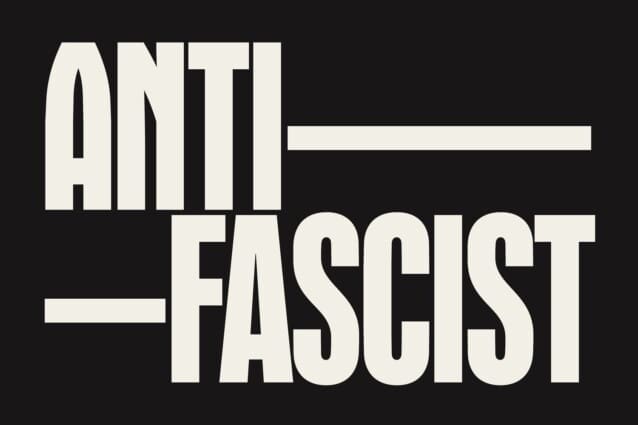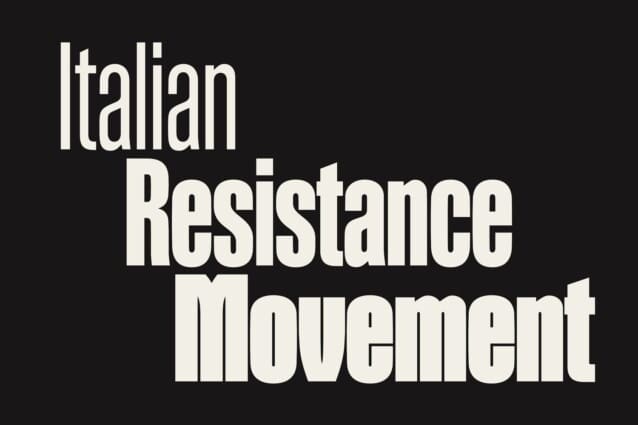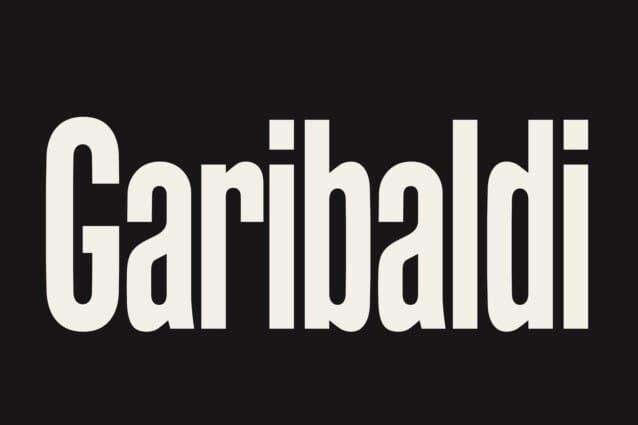
VTC Garibaldi Font
VTC Garibaldi Font, this family is inspired by the prolific typographic production of anti-fascist material distributed during WWII: flyers, journals, posters, etc. Works made in clandestinity to avoid the heavy repercussions people could face if found out.
The print work is utilitarian and informal, using what was available. Letterpress, typewriters, cyclostyle machines. The typography is eclectic: we can recognize classic typefaces from the Nebiolo type-foundry, imported typefaces from Germany, wooden type used for headlines or mastheads, monospaced types, and occasionally some decorative faces. There was no time, resources and often the typographical skills to create elaborate designs. The production of was an ephemeral material was limited to a couple of hundred flyers or less to be distributed locally. In cases like the journal ‘Il Combattente’ (The Combatant), published between December 7, 1943 (No. 1) and July 25, 1944 (No. 11), the project is more accomplished and elaborated. It was in fact the journal of the ‘Brigate Garibaldi’, one of the biggest and better organized groups of the Resistance.
The type family has been conceived as a combination of different styles that work together, giving life to a typographic palette where differences and analogies across the family are the elements that define its own nature. The overall palette will offer a modernized toolkit of what could have been available to the printers of the Resistance during the fight for liberation from the Fascist regime that ruled Italy.
In the overall production, we can synthesize a few recurrent themes into a typographic palette made of a Sans, a Monospace, and a Serif type.The first piece of this puzzle is made of a Sans typeface, beginning with the Extra Condensed type that we find in use for big headlines across a variety of materials. Among these, some of the most significant examples can be found in the the masthead of ‘Il Combattente’.The nature of the letterforms here is quite structured, mechanical, and showing the flavour of wooden type production. We extended the range of weights available at the time trying to preserve that same feeling of utilitarian, sturdy letterforms.